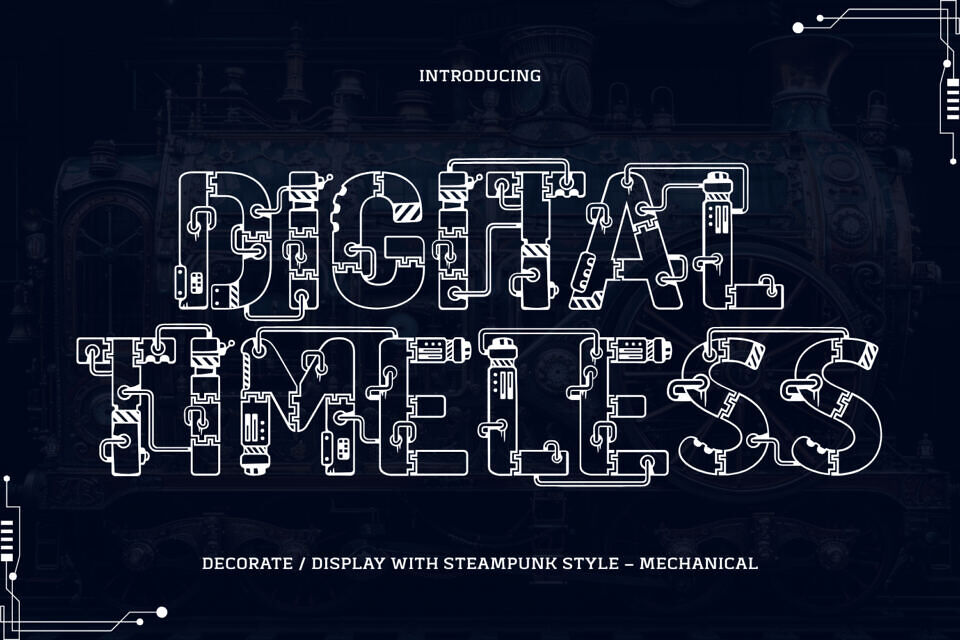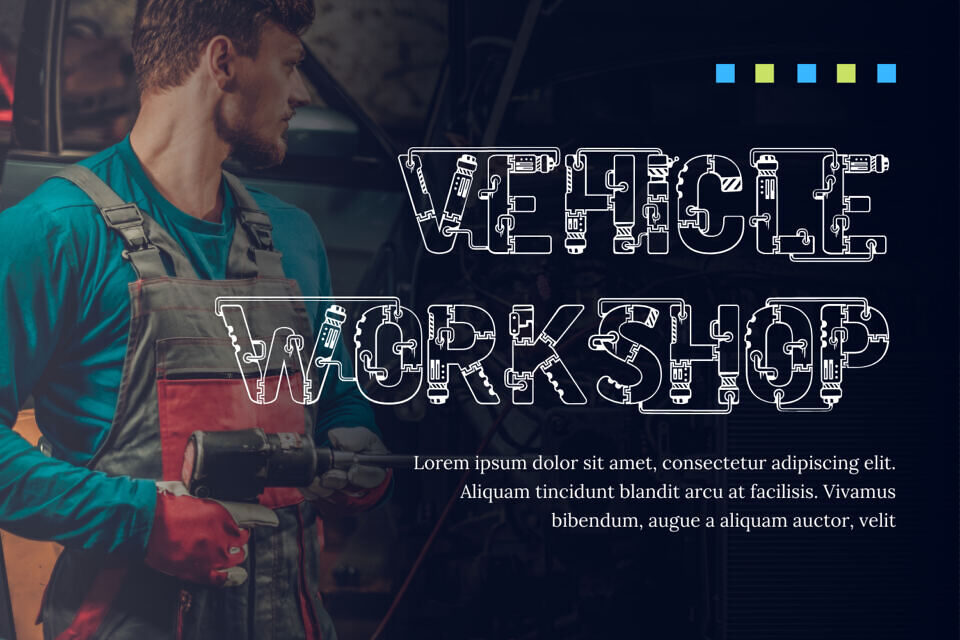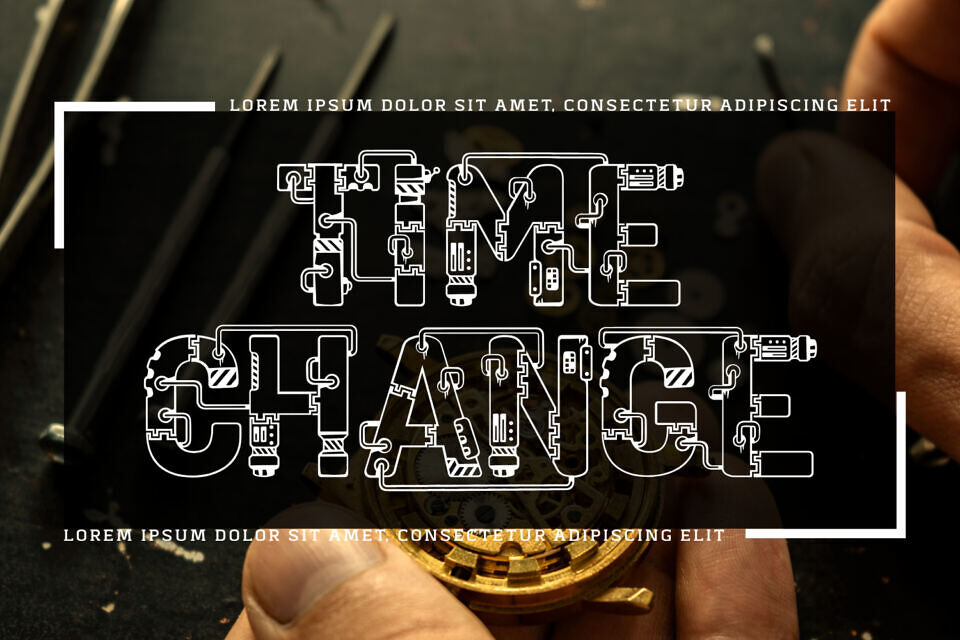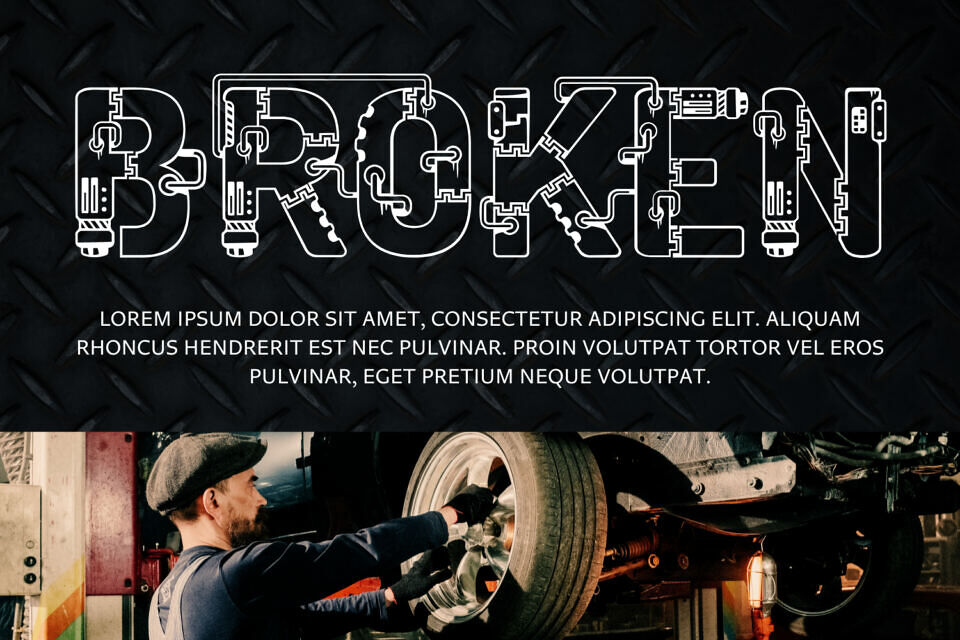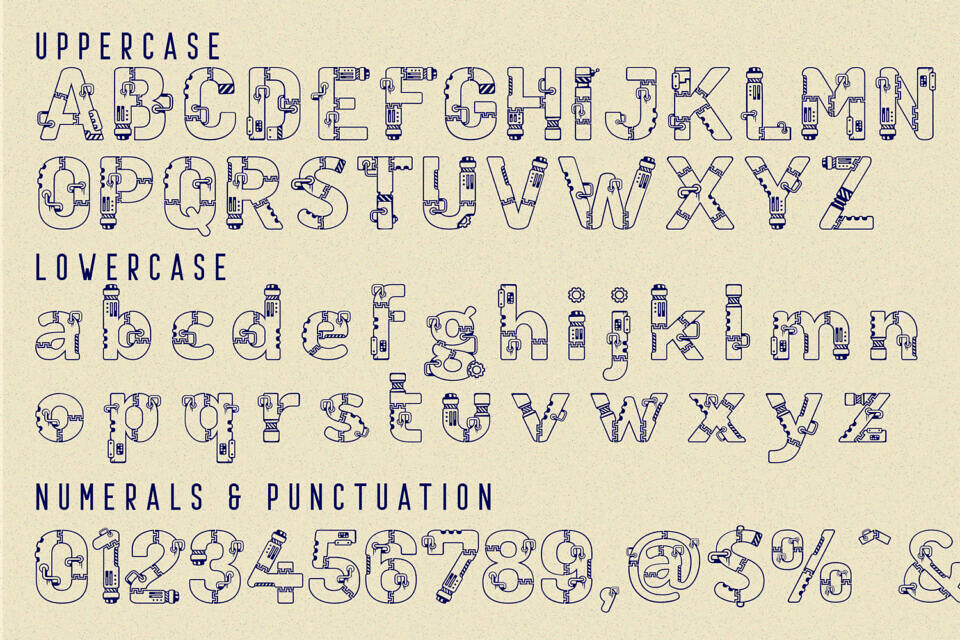
Digital Timeless is a bold techno industrial display typeface inspired by mechanical blueprints, pipe circuits, and futuristic engineering.
Each character is designed with intricate linework, modular connections, and tech-inspired detailing, creating a unique industrial-meets-digital look that is perfect for technology branding, cyberpunk posters, sci-fi titles, and gaming interfaces.
With over 100 stylistic ligatures and a complete set of characters, DIGITAL TIMELESS offers both creativity and functionality. Whether used for large display headlines or as a decorative element in your designs, this font delivers a distinctive high-tech identity that instantly grabs attention.